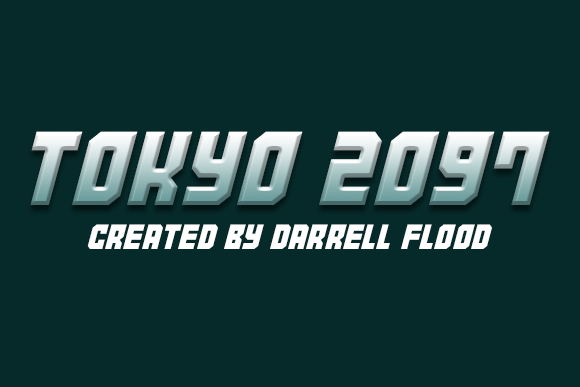
Tokyo 2097 Font
Step into the future with Tokyo 2097 Font, where bold meets avant-garde. This display font family, crafted by Darrell Flood and conjured by Dadiomouse, is a symphony of sharp angles, crisp lines, and dynamic strokes. Its distinctive style ignites a sense of motion and direction, propelling your visual creations into the digital realm of today and tomorrow.
Tokyo 2097 Font is not just a font; it's a portal to a world of boundless possibilities. Its clean, geometric lines convey a sense of order and precision, while its playful angles hint at a world beyond the ordinary. Unleash your creativity and watch your designs take on a life of their own, seamlessly blending the digital and the tangible.
With Tokyo 2097 Font, you hold the power to create visual identities that transcend time. Whether it's a futuristic logo, a striking poster, or an immersive website, this font family will elevate your designs to new heights. Its versatility knows no bounds, seamlessly adapting to a myriad of design projects.
Dive into the captivating world of Tokyo 2097 Font and embark on a typographic adventure like never before. Let your imagination soar as you craft designs that are both modern and timeless, edgy and sophisticated. This font family is your gateway to a world of limitless expression and visual storytelling.